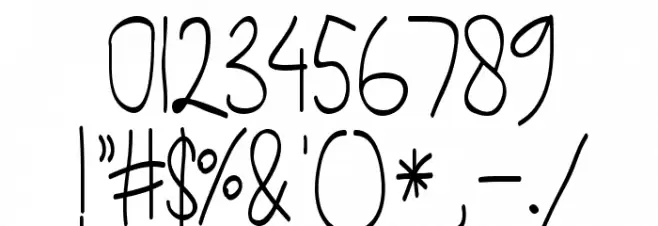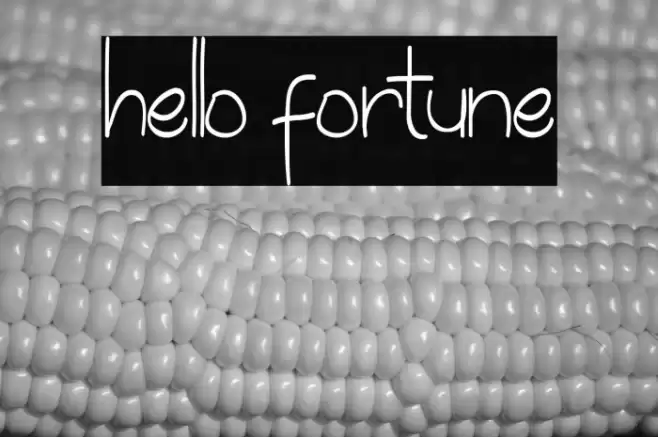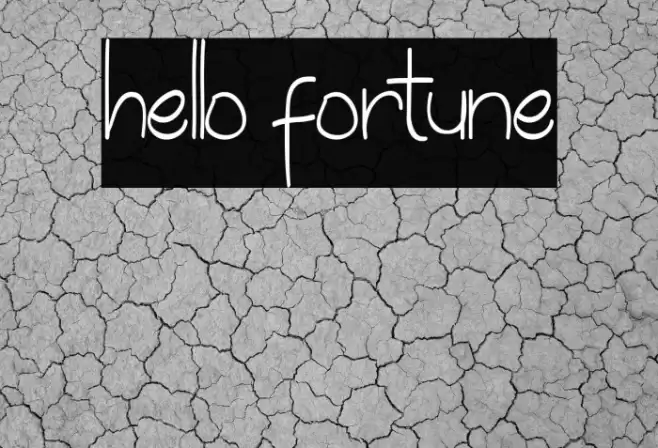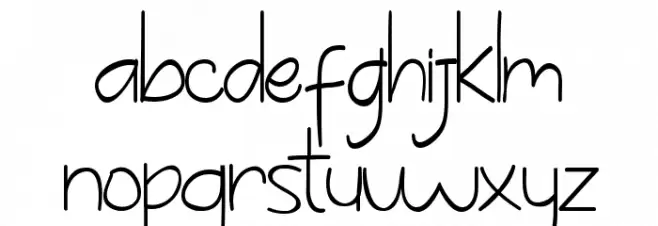
hello fortune Font
hello fortune Description
A handwritten, playful, and casual font with thin, elongated characters and a whimsical style.
| Overall Style | Casual, Playful, Handwritten |
| Use Case | Children's books, Invitations, Personal notes, Creative projects |